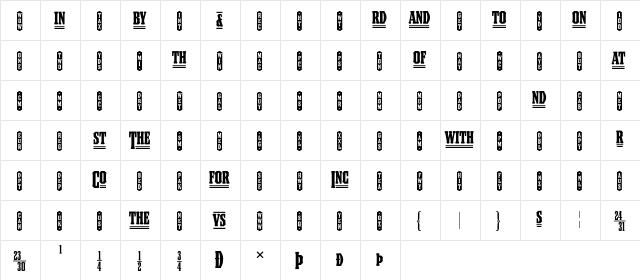
Council WordLogosTwo Font Preview
Council WordLogosTwo
Design Context for Council Typeface
Council is a composed and adaptable typeface that performs quietly and consistently across a wide range of design contexts.